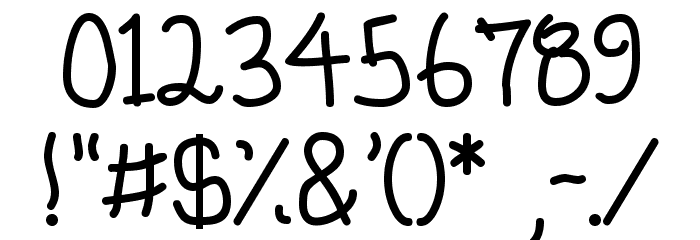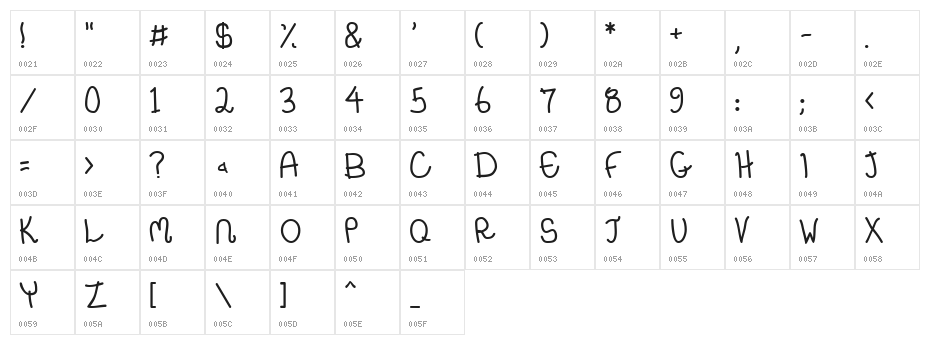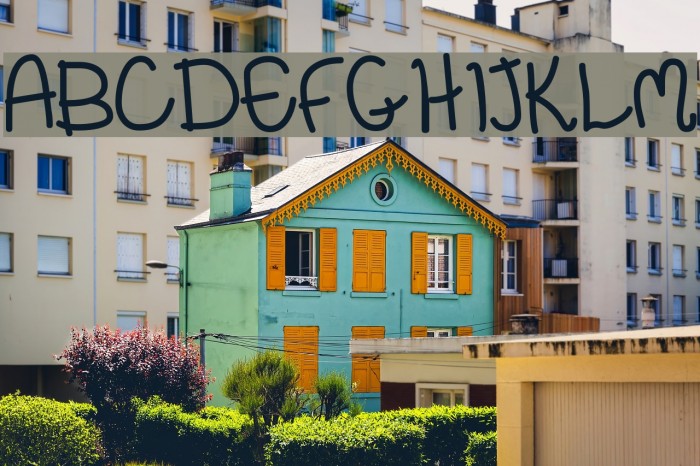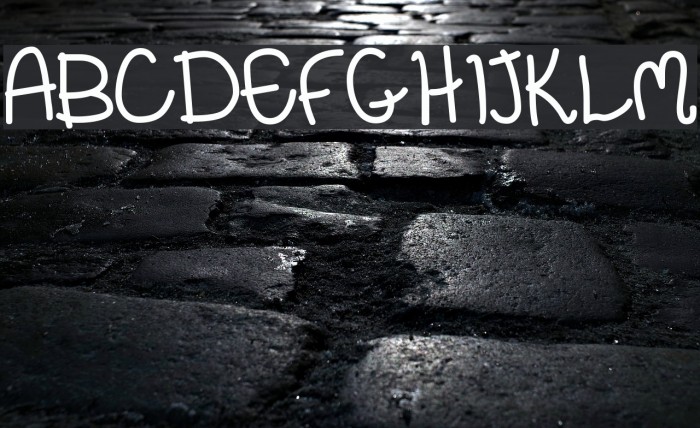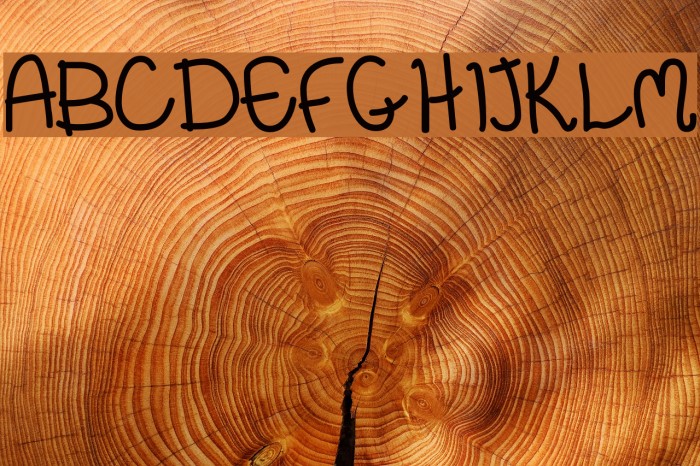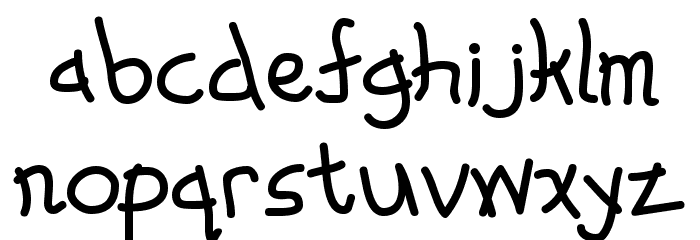
Whimsico Font
Whimsico Description
This playful and whimsical font features a handwritten style with a casual and friendly appearance. The characters are slightly irregular, giving it a unique and personal touch. The strokes are consistent in width, providing a uniform look across all characters. The font includes both uppercase and lowercase letters, numbers, and a variety of special characters. Its informal style makes it suitable for creative projects that require a touch of personality and fun.
| Proposed Projects | Ideal for children's books, greeting cards, playful branding, and informal invitations. |